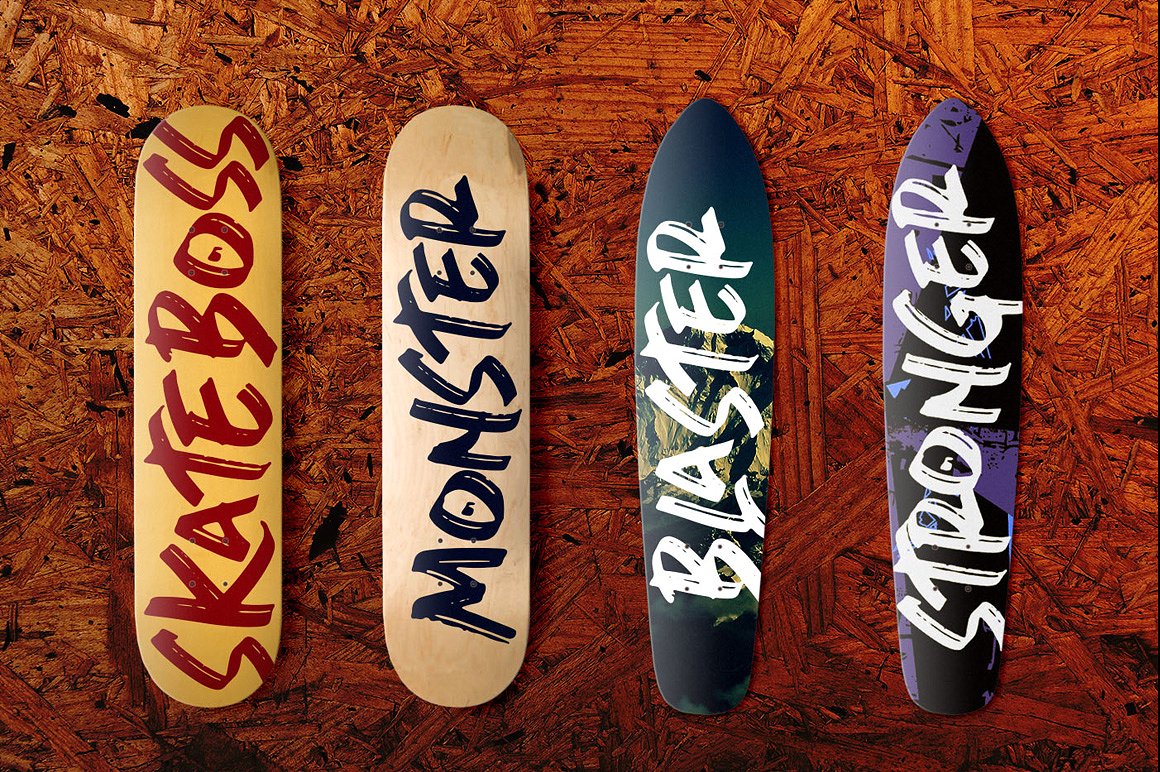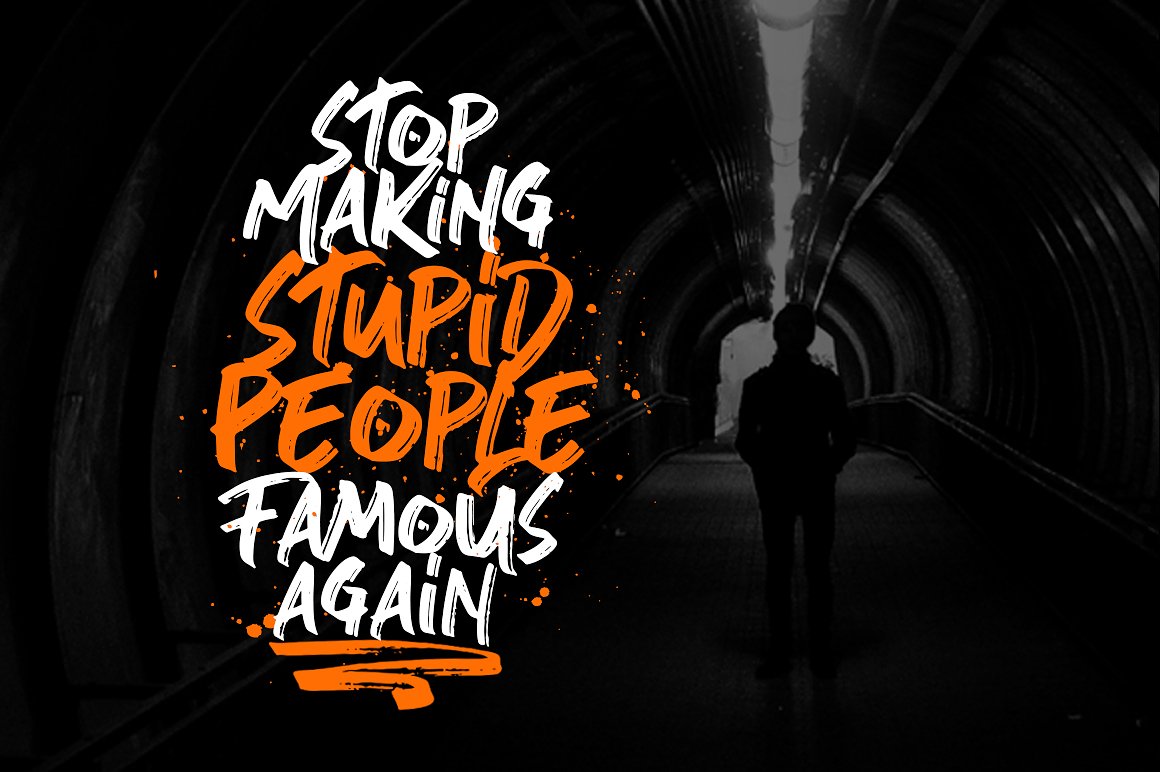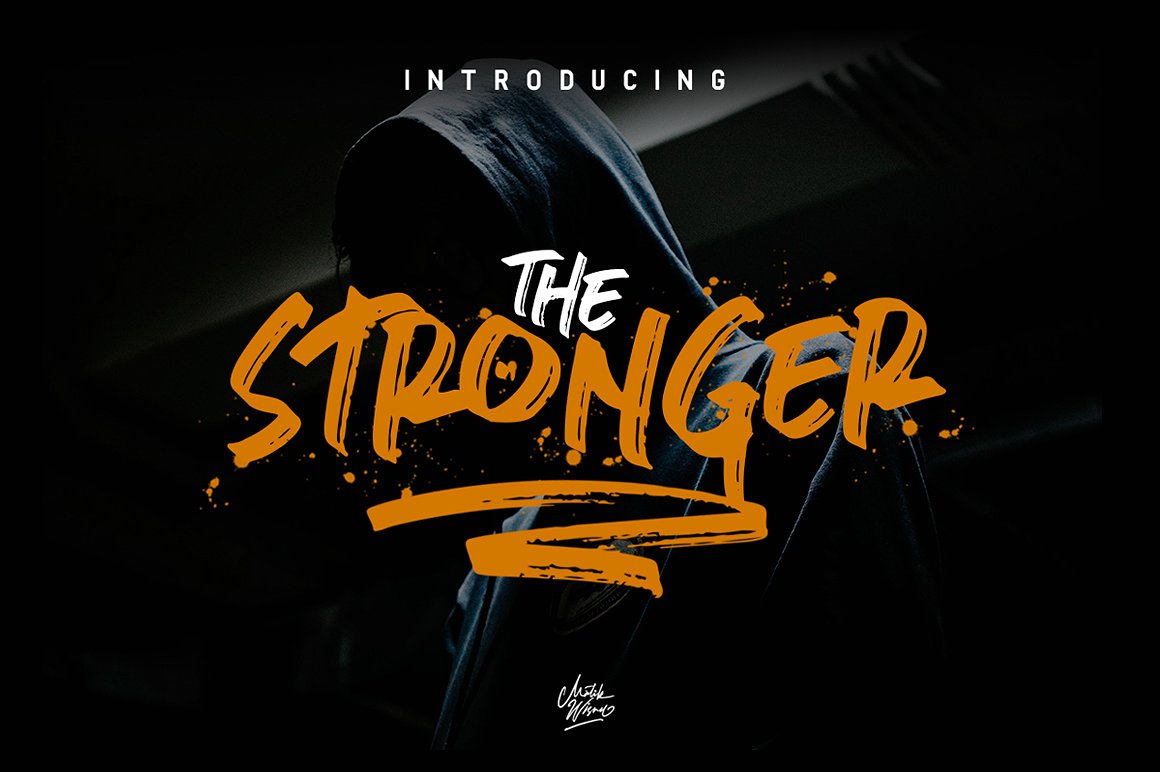
Stronger Brush font
That would be a great gift for you. A new brush style. Add it now to your fonts collection. Introducing Stronger Font! Stronger designed and shared by MLKWSN studios. Stronger is a supercharged, street-wise brush font bursting with energy. With extra attention to quick strokes and sharp details, Stronger is ideal for logos, apparel, quotes, product packaging, or anything which needs a typographic turbo-boost.